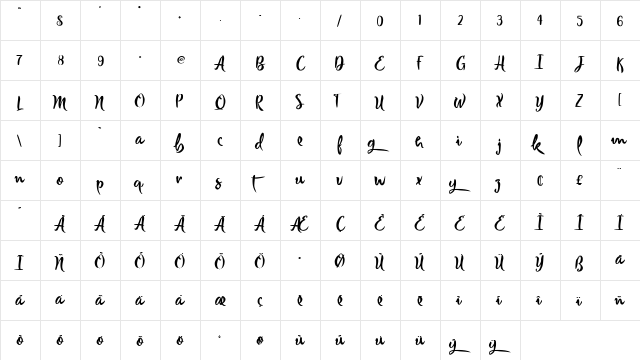
Joker Smiling Regular
| Foundry | Typhoon Type - Suthi Srisopha |
| Designer | Typhoon Type - Suthi Srisopha |
Design Context for Joker Smiling Typeface
Joker Smiling is a composed and adaptable typeface that performs quietly and consistently across a wide range of design contexts.